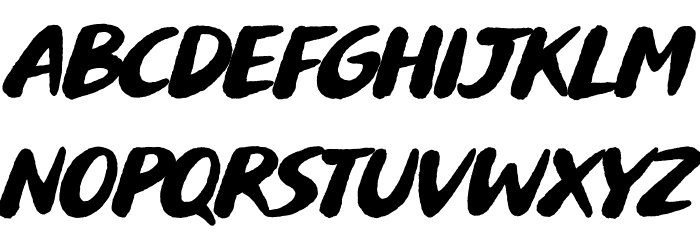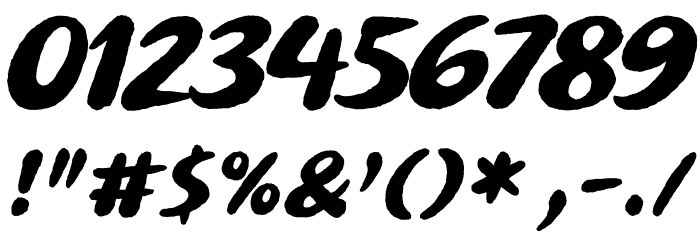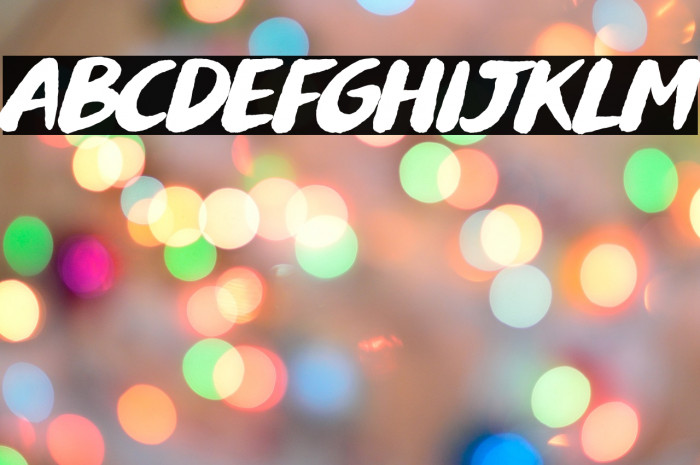
Buvard Font
This font features a bold, brush-like style that exudes energy and dynamism. The characters are crafted with a hand-painted appearance, giving them a lively and artistic flair. The strokes are thick and expressive, with a slight slant that adds to the sense of movement. The uppercase and lowercase letters maintain a consistent style, ensuring readability while retaining their artistic quality. Numbers and special characters are equally bold and expressive, making them suitable for impactful designs. The overall look is both modern and artistic, perfect for projects that require a personal touch.
A bold, brush-style font with a dynamic and artistic flair.
- Proposed Projects: Ideal for branding, posters, and creative projects that require a bold and artistic touch.